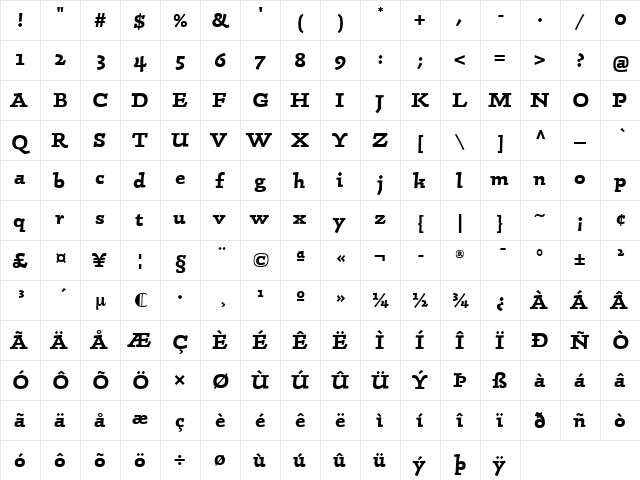
LinotypeConrad Light Bold
Design Context for LinotypeConrad Light Typeface
LinotypeConrad Light is a composed and adaptable typeface that performs quietly and consistently across a wide range of design contexts. The heavy weight commands attention and anchors typographic hierarchies.
Pro Tip: Use LinotypeConrad Light in both headline and body roles to test its range before committing to a single application.